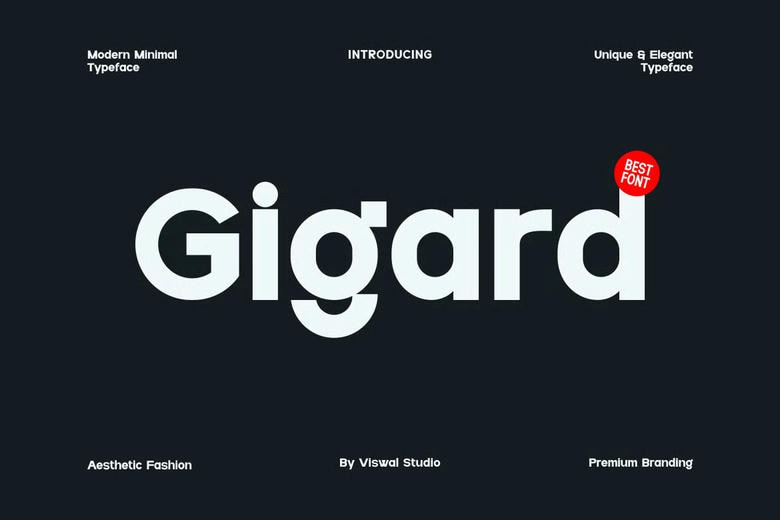
Gigard is A Contemporary and Unique Typeface. Can Help Ease the Delivery of the Message in your Design. Font Is Suitable Logo, Labels, Badge, Branding, Magazine, Poster, Title, Gigs, Covers And Etc. We have Characteristics of uppercase and lowercase, numeral and punctuation, and opentype. Amazing Designs You Can Mix of Another Fonts As a Complement.
Gigard Sans Serif Font